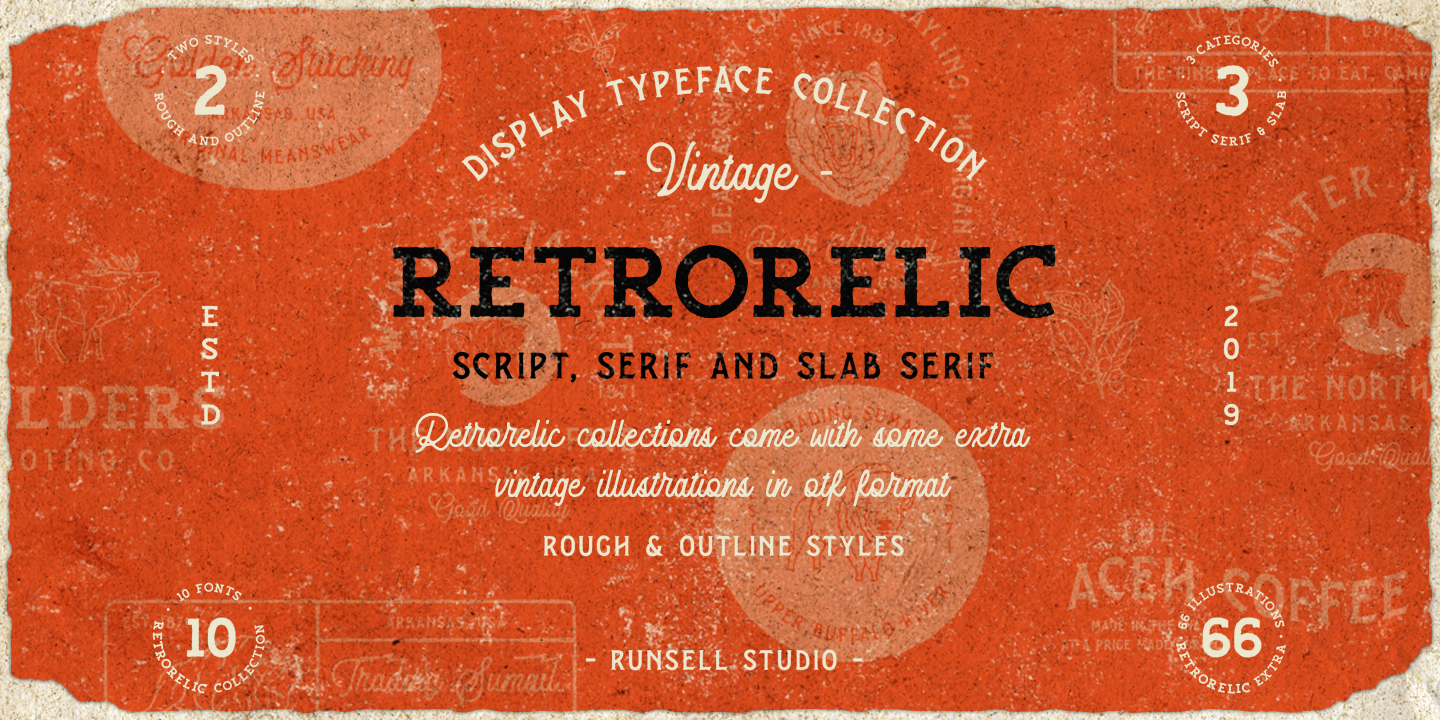
The Retrorelic Font is an excellent choice for designs that demand a nostalgic, vintage, and authentically aged aesthetic, perfect for transporting viewers to a bygone era. Imagine it gracing the covers of classic rock albums, adding a weathered and charming feel to retro movie posters, or bringing a distinctive, old-school vibe to craft beer labels. It's also perfectly suited for captivating event invitations for throwback parties, unique branding for antique shops, and any project where you want to evoke a sense of history, authenticity, and enduring charm. With its characteristic imperfections and often distressed textures, the Retrorelic Font is ideal for projects that aim for visual depth and a memorable impression.
What makes the Retrorelic Font truly exciting is its remarkable ability to instantly communicate a rich past and a timeless appeal. It feels genuinely unearthed and full of stories, instantly giving your designs an intimate and exclusive quality. This font often features subtle irregularities, worn edges, or a textured appearance that mimics the effects of time, setting it apart from pristine digital typefaces. It's perfect for establishing a brand identity that feels established, trustworthy, and creatively inspired, ensuring your message is not just seen, but appreciated for its authentic character. The Retrorelic Font Free Download offers a fantastic opportunity to infuse your projects with this distinctive spirit.
The Retrorelic Font family is typically designed to offer versatility while maintaining its signature vintage and authentic style. While specific family members can vary, you can often expect to find:
• Retrorelic Regular
• Retrorelic Bold (for added emphasis and powerful headlines, often with more pronounced distress)
• Retrorelic Distressed (or Textured, specifically designed for a worn-out or grunge look)
• Retrorelic Outline (for a unique display effect, mimicking aged signage)
• Retrorelic Script (if it includes a complementary flowing handwritten or brush script style for versatile pairing)
These variations provide flexibility for different design applications, allowing you to create engaging visual hierarchies and maintain a consistent, charming aesthetic across all your projects.